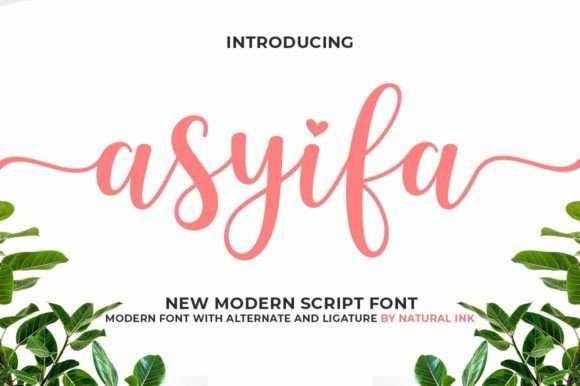
Unleashing the Beauty of Handwritten Letters
Have you ever sat down with a pen and paper, letting the strokes of your pen dance across the page as you crafted a message just for someone special? It’s a feeling that’s hard to replicate with digital tools, but one that can be achieved with the right font – and that’s exactly where the Asyifa Font comes in.
This modern calligraphy design is more than just a pretty face; it’s a versatile tool that can be used for a wide range of creative projects, from logos and product packaging to wedding invitations and book covers. Whether you’re a seasoned designer or just starting out, the Asyifa Font is a valuable addition to your toolkit, offering a unique and elegant touch that’s sure to elevate your designs.
Key Features of Asyifa Font
- Font Family: Asyifa is a unique and elegant font family designed for various applications, including signage, branding, and digital media.
- Font Size: The font family includes a range of weights and styles, from Light to Extra Bold, making it suitable for various text sizes and applications.
- Unique Characteristics: Asyifa features a distinctive, flowing script style with intricate connections between letters, giving it a premium and sophisticated look.
Asyifa Font Review
As a designer, I was excited to dive into the Asyifa Font and see what it had to offer. Overall, I’d say it’s a solid addition to any designer’s toolkit, but it’s not without its limitations.
- Asyifa Font has a unique and elegant feel to it, making it perfect for projects that require a touch of sophistication.
- The font is highly customizable, with a wide range of weights and styles to choose from.
- It’s also highly legible, even at smaller font sizes, making it a great choice for body text.
- One of the main drawbacks of Asyifa Font is its limited language support. It’s not optimized for languages that require a lot of diacritical marks, which can be a major issue for designers working on global projects.
- The font can also be quite heavy, which may not be ideal for designers working on projects with limited space constraints.
While Asyifa Font is not perfect, I think it’s a great addition to any designer’s toolkit. Its unique feel and high level of customizability make it a great choice for projects that require a touch of elegance. However, designers should be aware of its limitations, particularly when it comes to language support and file size.
Tips: Use the Asyifa Font for titles and headings to add a touch of elegance to your design. Experiment with different font sizes and colors to enhance the visual appeal.
Tips: Use the Asyifa Font for intricate designs and typography projects. Experiment with different font styles and effects to create unique and visually striking designs.
Tips: Use the Asyifa Font for presentations and documents that require a touch of sophistication. Experiment with different font sizes and colors to enhance the visual appeal.
The Asyifa Font is suitable for various design projects, including:
- Typography projects and art
- Editorial and magazine design
Alternatives to Asyifa Font for Designers
Poppins Font is a modern sans-serif font designed for digital media. It is suitable for headlines, titles, and body text where a clean and minimalist look is desired. Poppins Font is more geometric and has a higher x-height compared to Asyifa Font, making it more suitable for digital displays and screens.
Lato Font is a sans-serif typeface designed for use in digital products. It is ideal for body text, titles, and headlines where a friendly and approachable feel is needed. Lato Font is more rounded and has a lower contrast compared to Asyifa Font, making it more suitable for long-form content and readability.